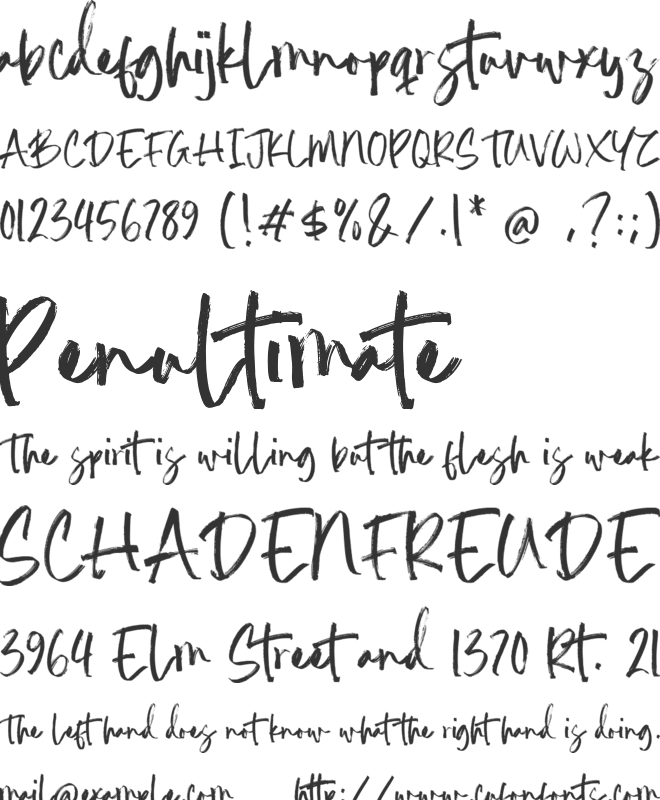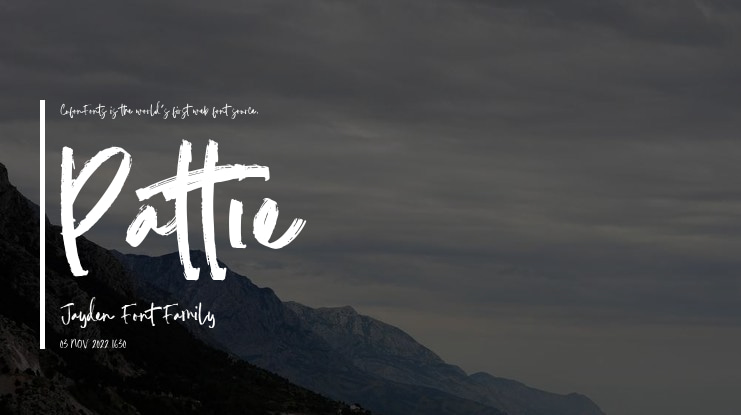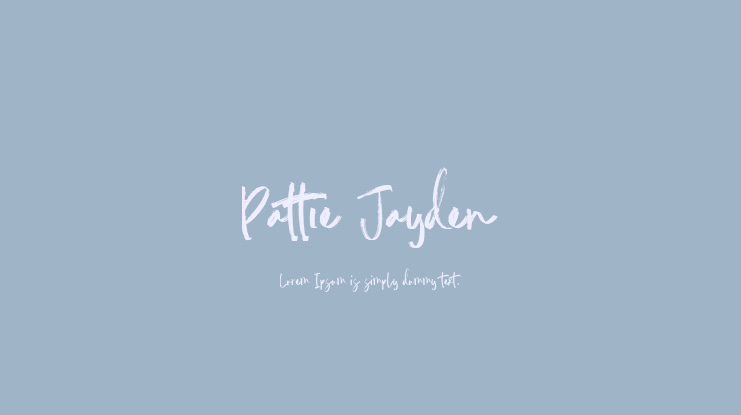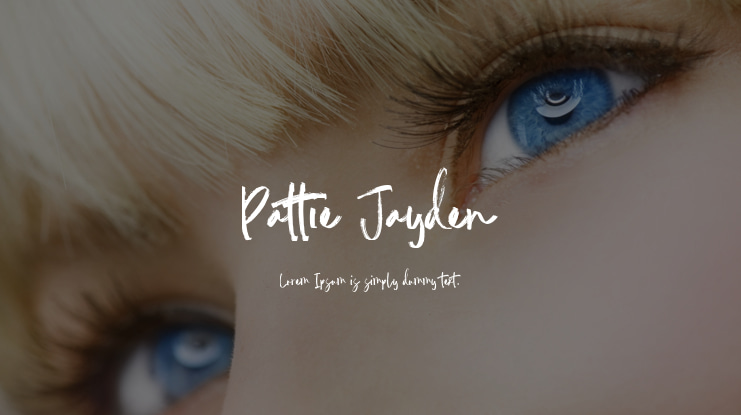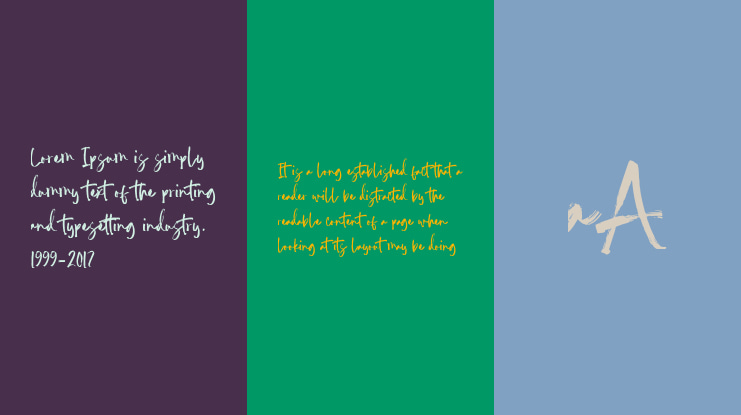
**Pattie Jayden** is a handbrushed script font that beautifully merges fluid strokes with a playful elegance. Its artistic flow and modern charm lend a handwritten feel to any design, making it ideal for branding, invitations, or creative projects. With its smooth curves and stylish flair, Pattie Jayden perfectly balances sophistication with a relaxed, approachable vibe.